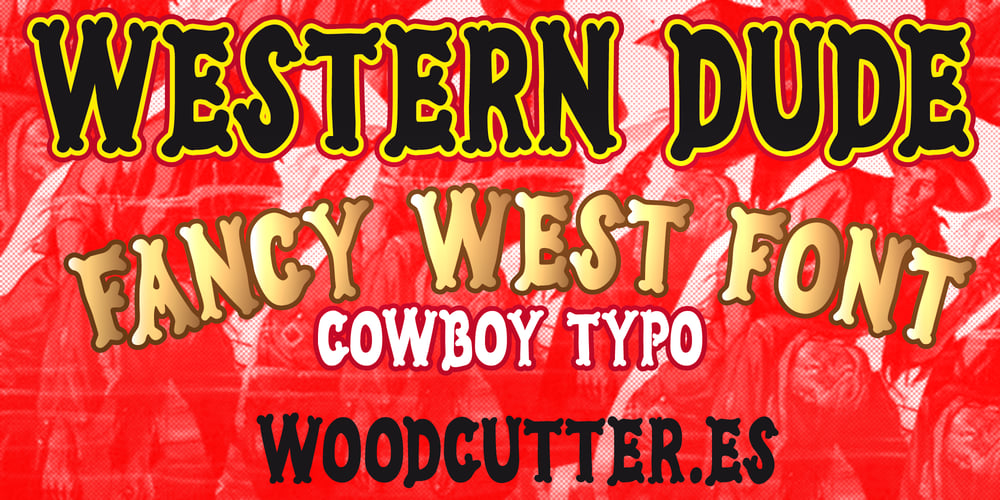
Western Dude Font Family was designed by Jordi Manero and published by Woodcutter. Western Dude contains 1 styles and family package options. “Western Dude” is an uppercase typeface that captures the essence of the Wild West with a laid-back and imperfect touch. Its letters feature a classic western-style design, but with slightly irregular lines and a more informal, handmade appearance. It includes accents, making it ideal for multilingual projects. Perfect for posters, headlines, or thematic designs aiming to evoke the aesthetics of the Old West with a relaxed and authentic approach. “Western Dude” combines the rustic charm of the West with a casual style that adds personality and character to any design.